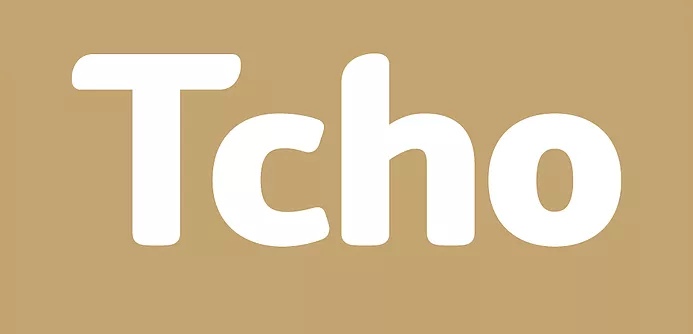
Tcho Font
Tcho Font is perfect for modern branding projects, tech startups, digital interfaces, mobile apps, web design, logo creation, advertising campaigns, social media graphics, poster designs, and contemporary editorial layouts.
What makes Tcho Font so exciting is its bold, geometric structure combined with subtle rounded edges that create a perfect balance between professionalism and approachability. This typeface stands out with its clean, minimalist aesthetic that embodies modern design principles while maintaining excellent readability across all platforms. The font's distinctive character lies in its ability to convey innovation and reliability simultaneously, making it an ideal choice for brands that want to appear both cutting-edge and trustworthy.
Tcho Font comes in multiple weights and styles including Thin, Light, Regular, Medium, Bold, Black, and their corresponding Italic versions, providing designers with comprehensive typographic flexibility for complex design systems and brand hierarchies.
Whether you're developing a startup's brand identity, creating sleek user interfaces, or designing contemporary marketing materials, Tcho Font Free Download delivers exceptional versatility and visual impact. This modern typeface excels in both digital and print applications, maintaining its crisp appearance at any size from small body text to large display headlines. The font's carefully engineered letterforms feature optimized spacing and kerning that enhance readability while creating a sophisticated, professional appearance.
Creative professionals consistently choose Tcho Font for projects requiring a contemporary edge without sacrificing legibility or functionality. Its geometric foundation and refined details make it particularly effective for technology companies, design agencies, and forward-thinking brands across various industries. The font's clean lines and consistent weight distribution create visual harmony in complex layouts, while its subtle personality adds character without overwhelming the message. Tcho Font represents the evolution of modern typography, where functionality meets aesthetic excellence.